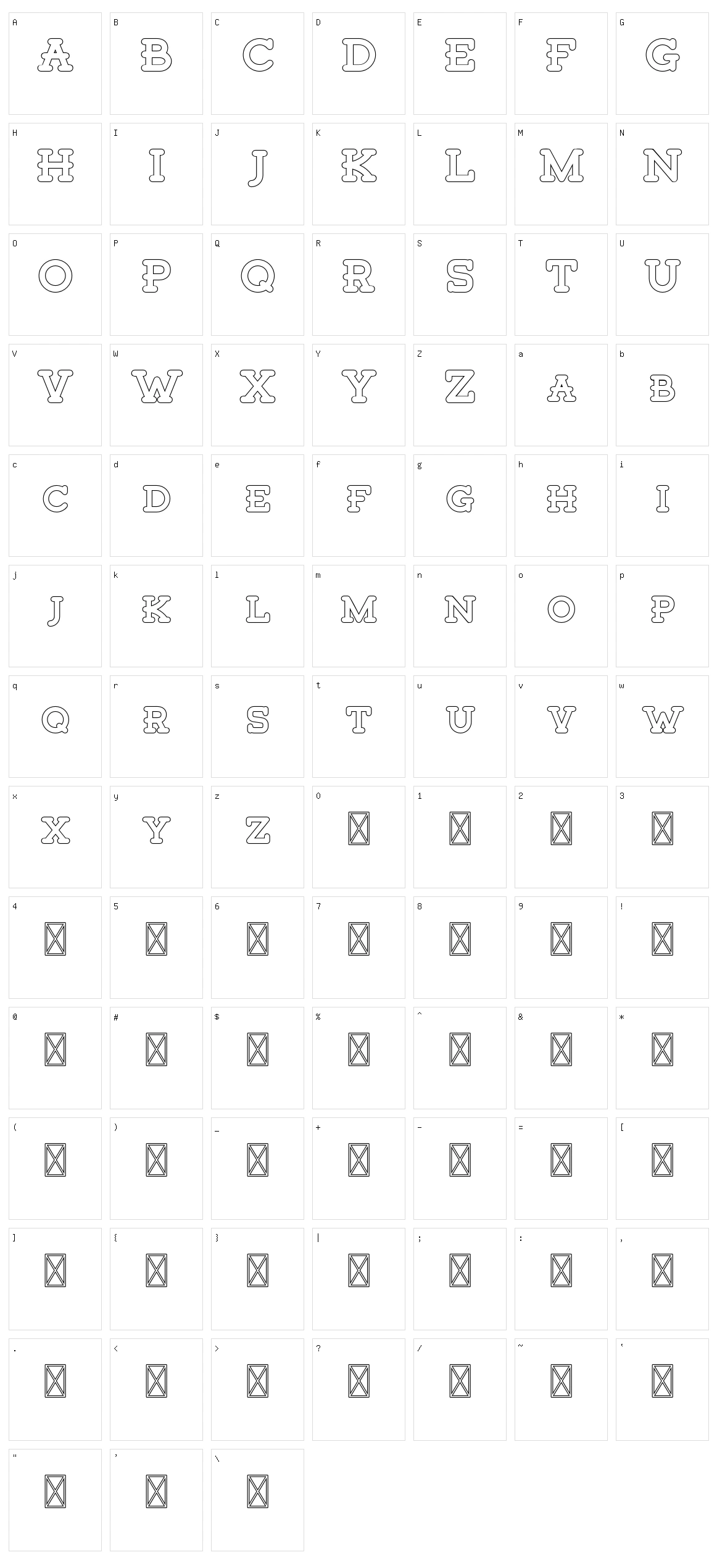
The free font Tigreal is carefully designed by Craft Supply Co., showcasing a thoughtful balance of creativity and usability and falls under the Typewriter font style. When you download the ZIP file, it contains only 157.56 KB of font files, making it lightweight and quick to download. Please review the license details below to understand permitted usage and distribution rights. If license information is not available, we recommend using this font for personal projects only or contacting the author directly for commercial usage permissions.